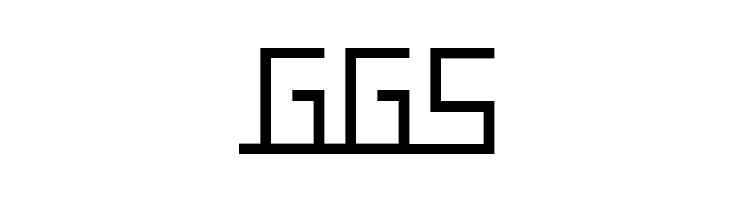
FODECUMBERS THICK HOLOW Font
- Font: FODECUMBERS THICK HOLOW
( Font by Sven Stuber - www.superlooper.de )
A bold, pixelated font with a geometric, digital style.